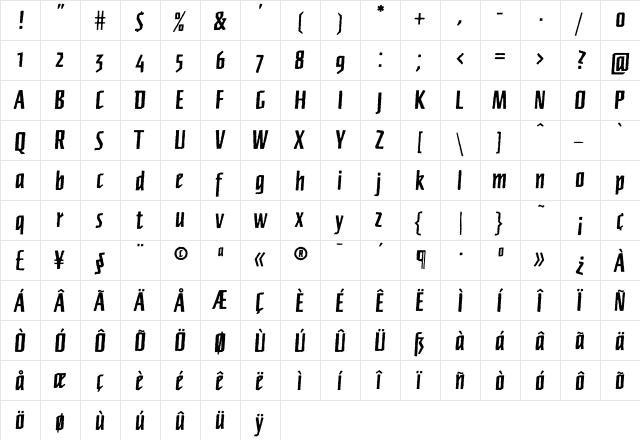
Newberlin BoldRough Font Preview
Newberlin BoldRough
Design Context for Newberlin Typeface
Newberlin embraces imperfection — its rough, textured character adds raw authenticity to designs that want to feel lived-in and unconventional.
A strong fit for alternative music projects, graffiti-adjacent design, and anything that deliberately resists polish.
Pro Tip: Use Newberlin at larger sizes where the texture and irregularity of each letterform can be clearly seen — it loses its character at small sizes.